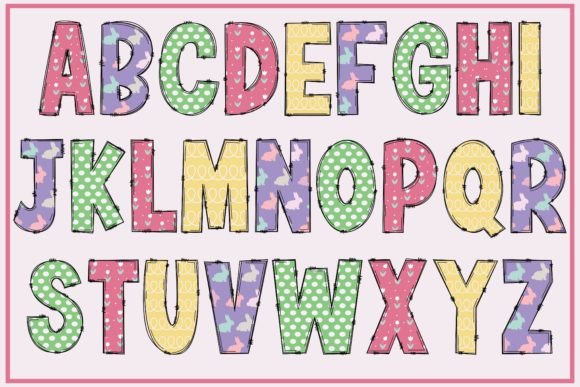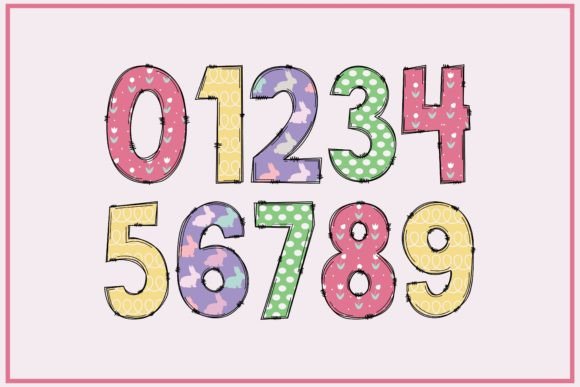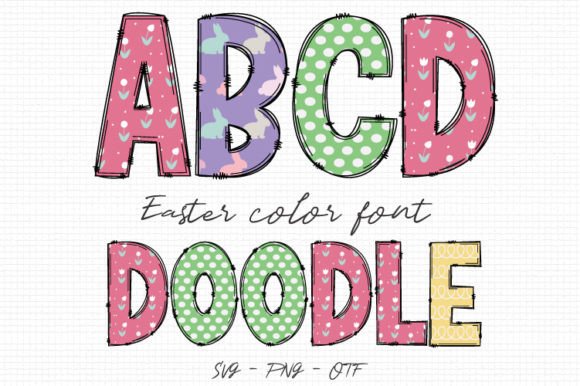
Easter Alpha Font: Add a Touch of Whimsy to Your Easter Creations
Are you looking for a font that can add a sweet, chic, and bubbly touch to your Easter creations? Look no further than the Easter Alpha Font! This delightful color font is perfect for designers and crafters who want to bring their Easter projects to life. In this article, we’ll take a closer look at the Easter Alpha Font, its features, and how you can use it to create stunning Easter designs.
What is Easter Alpha Font?
Easter Alpha Font is a color font, specifically an Opentype-SVG font, that is designed to add a pop of color to your Easter creations. This font is perfect for creating Easter cards, invitations, decorations, and other projects that require a touch of whimsy and fun. With Easter Alpha Font, you can create designs that are sure to delight both kids and adults alike.
Key Features of Easter Alpha Font
- Color Font: Easter Alpha Font is a color font, which means you can use it to create designs with multiple colors.
- Sweet, Chic, and Bubbly: This font has a sweet, chic, and bubbly style that’s perfect for Easter creations.
Easter Design Ideas
Easter Alpha Font is perfect for a range of Easter design projects, including:
- Easter Cards: Create personalized Easter cards for friends and family.
- Easter Invitations: Design Easter invitations that are sure to delight both kids and adults.
- Easter Decorations: Use Easter Alpha Font to create colorful Easter decorations, such as banners and garlands.
Easter Alpha Font is a sweet, chic, and bubbly color font that’s perfect for adding a touch of whimsy to your Easter creations. With its compatibility with popular design software and its range of features, this font is a must-have for designers and crafters. Whether you’re creating Easter cards, invitations, or decorations, Easter Alpha Font is sure to bring your designs to life.